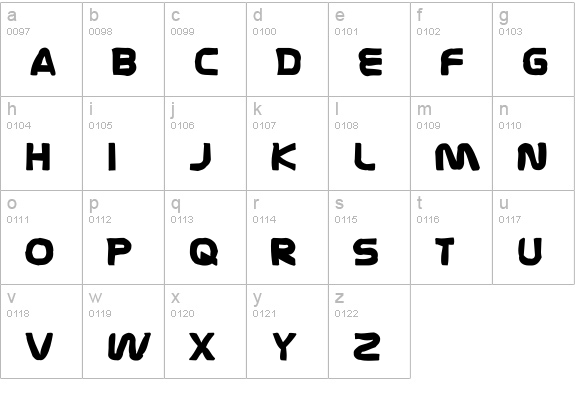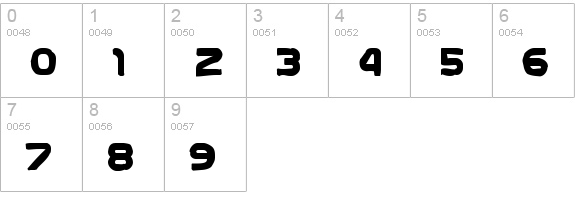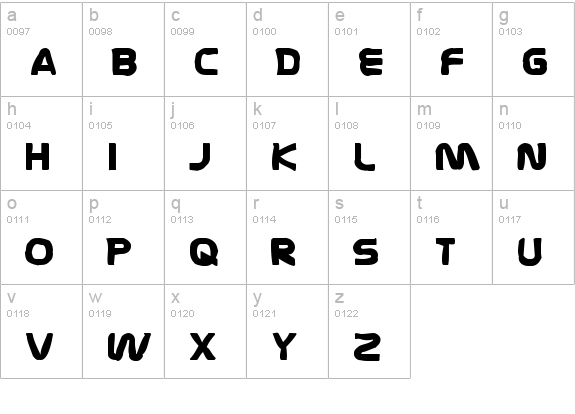
Nasalization Ink Font Details
Nasalization Ink font is a stunning display typeface that exudes a sense of modernity and sophistication. Its unique design features a bold and futuristic look, making it perfect for adding a contemporary touch to any project. The font's sleek lines and geometric shapes give it a sleek and stylish appearance that is sure to make a statement. Nasalization Ink font is versatile and can be used for a variety of design projects, from branding to editorial design. The best part about Nasalization Ink font is that it is available for free download at FontsMarket.com. This means you can easily access this eye-catching font and use it in your creative projects without any cost. Whether you're a graphic designer, web developer, or just someone looking to add a touch of flair to your designs, Nasalization Ink font is the perfect choice. Download it today and elevate your designs with this modern and stylish typeface.